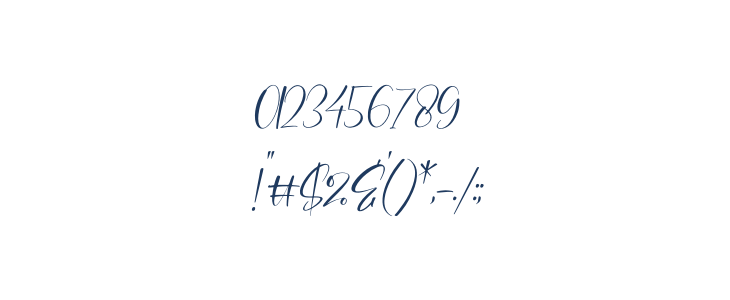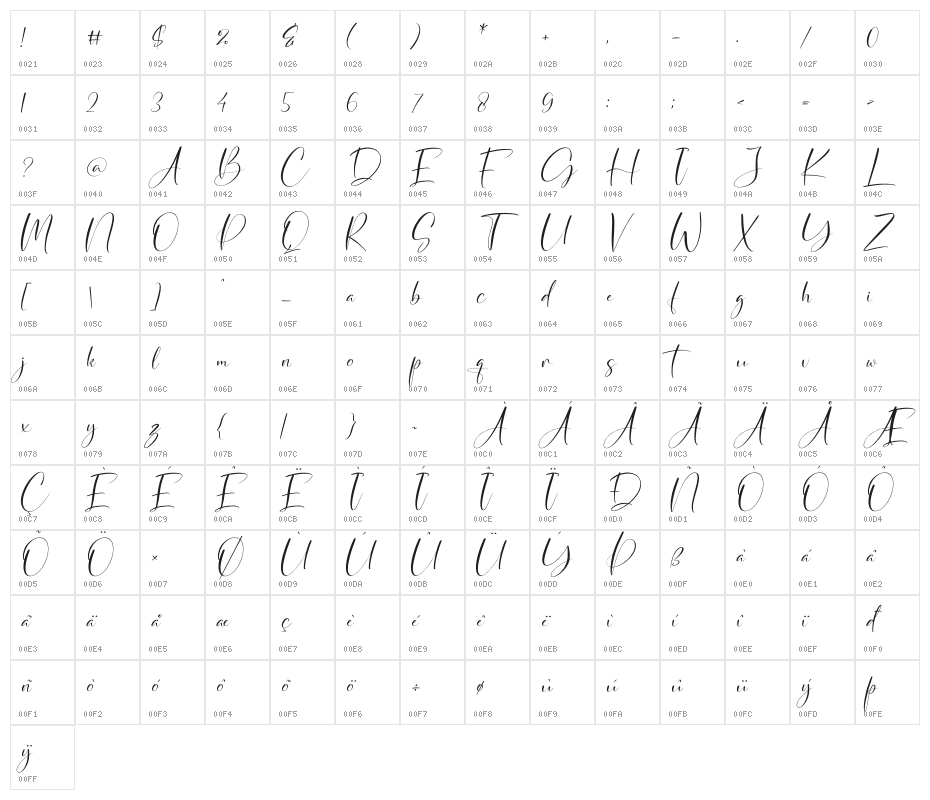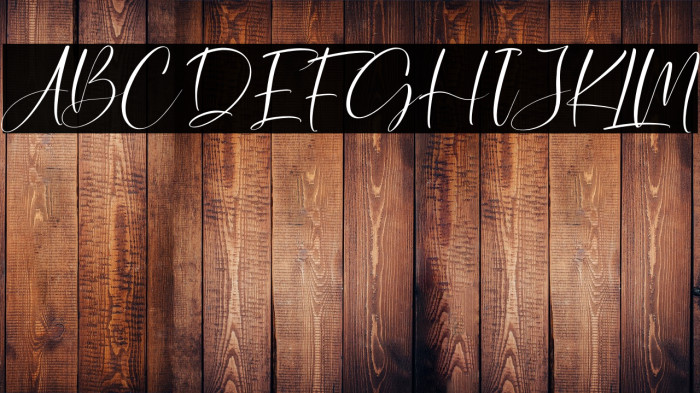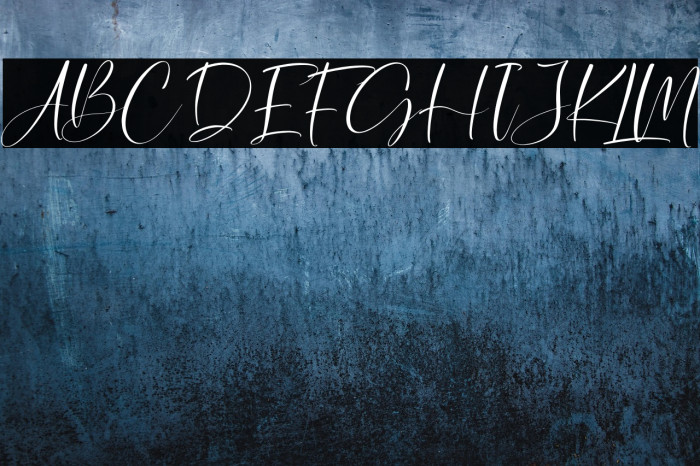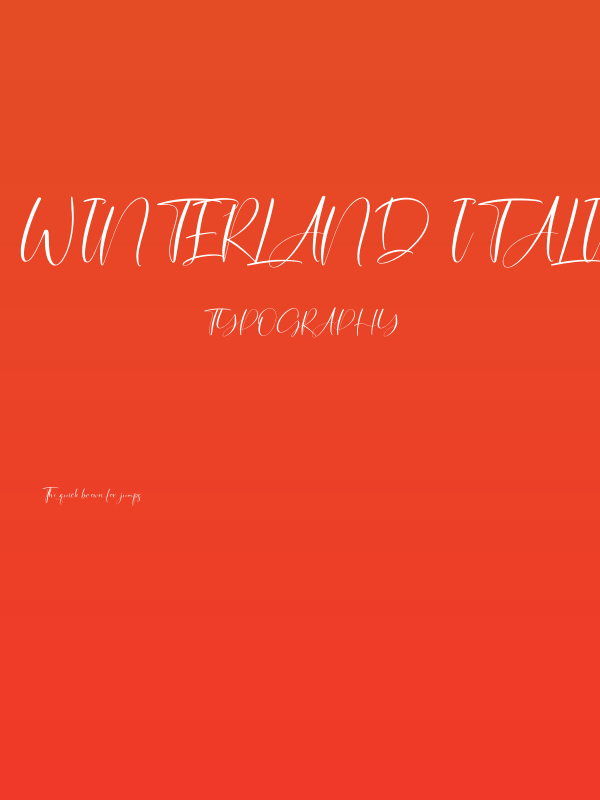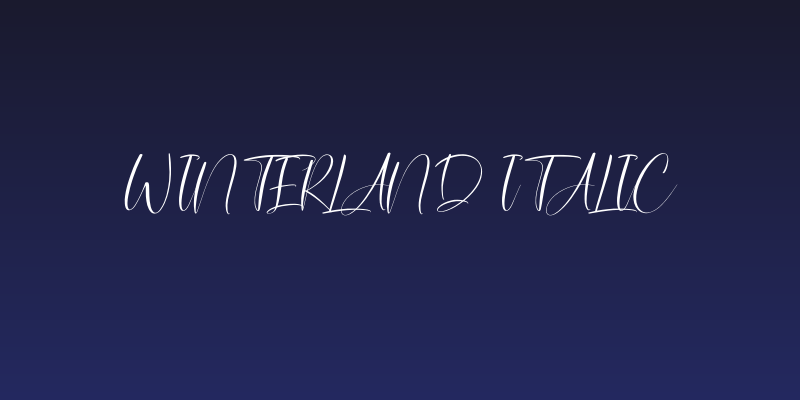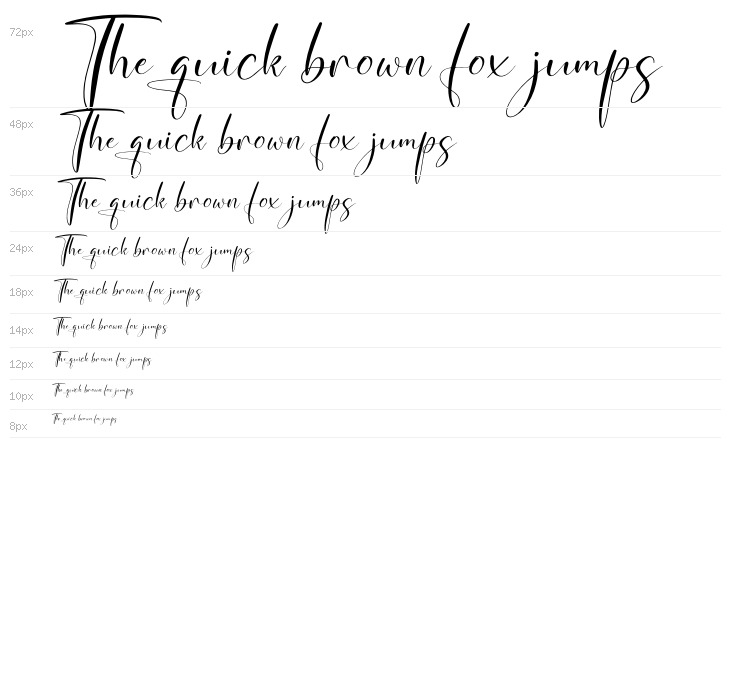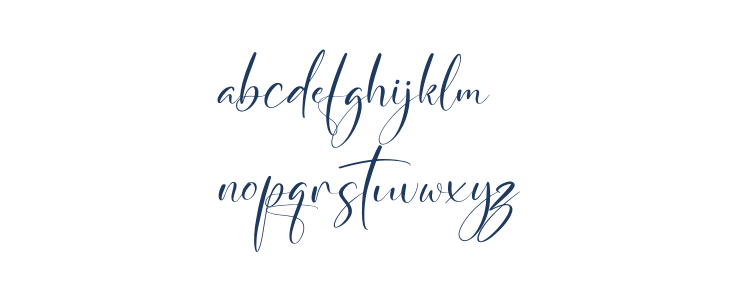
Winterland Italic Font
Winterland Italic Description
This font features an elegant and flowing script style, characterized by its graceful, sweeping curves and delicate strokes. The uppercase letters are tall and slender, with an airy feel that adds a touch of sophistication. The lowercase letters maintain a consistent fluidity, enhancing the overall elegance. The numerals are designed with a similar flair, ensuring a cohesive look throughout. Special characters are thoughtfully integrated, maintaining the font's graceful aesthetic. This font's italic nature adds a dynamic and stylish touch, making it ideal for creative and expressive designs.
| Overall Style | Elegant, Artistic |
| Proposed Projects | Ideal for wedding invitations, elegant branding, greeting cards, and artistic projects. |